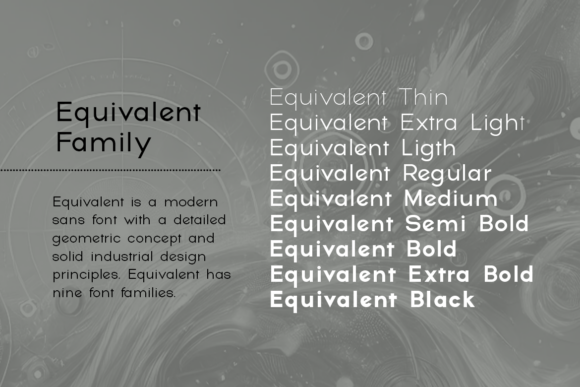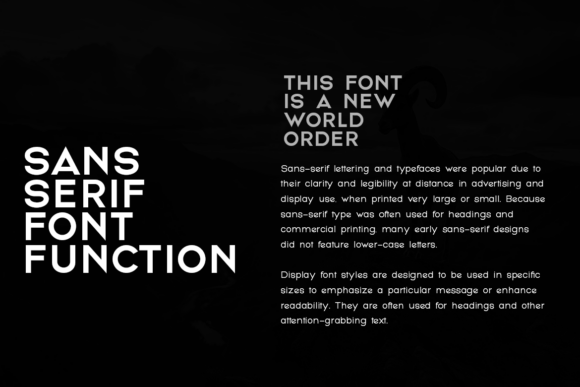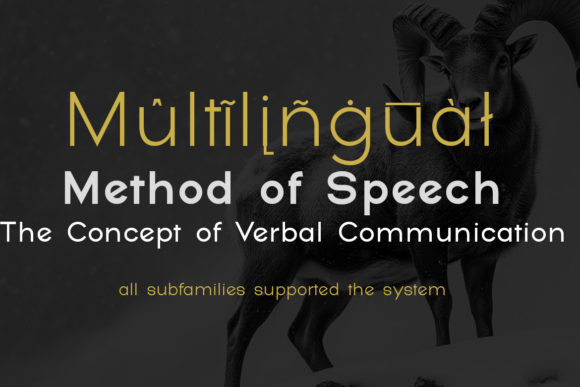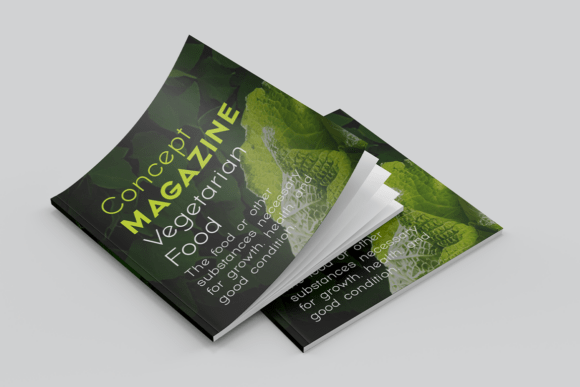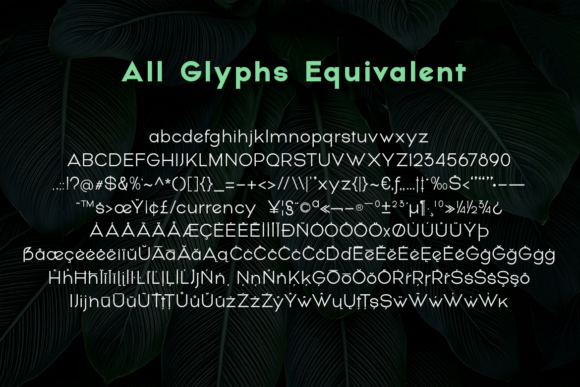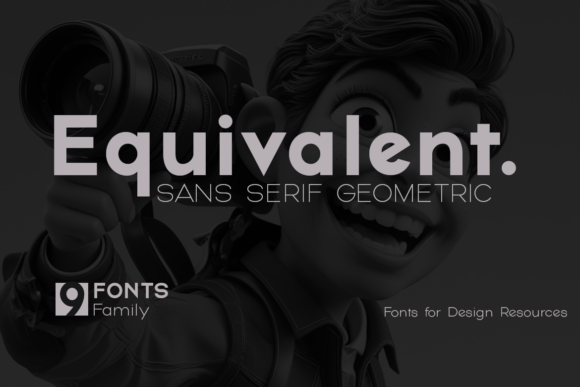
Introducing Equivalent Font: A Modern Sans Serif Marvel
In the realm of typography, a well-crafted font can elevate a design from ordinary to extraordinary. For designers and crafters seeking a modern sans serif font that embodies both style and functionality, look no further than Equivalent Font. This geometric marvel, rooted in solid industrial design principles, is poised to revolutionize your creative projects.
The Equivalent Font Family: A Spectrum of Versatility
Equivalent Font boasts an impressive nine font families, offering a range of choices to suit any design requirement. This extensive collection ensures that you can adapt your typography to fit various contexts, from digital interfaces to print materials, without compromising on aesthetics or readability. Whether you’re working on a sleek corporate brand identity or a vibrant advertising campaign, Equivalent Font provides the versatility you need.
Understanding the Concept: Geometric and Industrial Roots
At its core, Equivalent Font is built on a detailed geometric concept. This approach ensures that each character is meticulously designed with precision and balance, reflecting a harmonious blend of curves and lines. The industrial design principles that underpin Equivalent Font contribute to its modern appeal, making it an excellent choice for projects that demand a contemporary edge.
The Power of Sans Serif: Clarity and Legibility
Sans serif typefaces, like Equivalent Font, have long been favored for their clarity and legibility, particularly in advertising and display use. This is because their clean lines and straightforward appearance make them highly readable, even at a distance or when printed in various sizes. Whether you’re designing a billboard, a website header, or a business card, Equivalent Font ensures that your message is conveyed with utmost clarity.
Exploring the 9 Weights of Equivalent Font
One of the standout features of Equivalent Font is its comprehensive range of weights. Available in nine straight weights, this font family allows designers to experiment with different tones and emphasis within their work. From the light, airy feel of the lighter weights to the bold, assertive presence of the heavier weights, Equivalent Font offers the flexibility to tailor your typography to the nuances of your message.
Applications for Designers and Crafters
Equivalent Font’s versatility makes it an invaluable asset for a wide range of applications. Designers can leverage its geometric sophistication and industrial edge to create:
- Branding and Logos: Establish a strong, modern identity for your brand with a font that communicates professionalism and innovation.
- Advertising and Marketing Materials: Capture attention and convey your message with clarity, using a font that stands out in any medium.
- Digital Interfaces: Enhance user experience with a clean, readable font that performs well across various devices and screen sizes.
- Print Materials: From brochures and posters to business cards and packaging, Equivalent Font brings a touch of modernity and elegance to any printed piece.
Equivalent Font represents a significant addition to the world of typography, offering designers and crafters a powerful tool to elevate their creative projects. With its geometric concept, industrial design principles, and extensive range of weights, this modern sans serif font is poised to become a go-to choice for those seeking both style and functionality. Explore the possibilities of Equivalent Font today and discover how it can transform your designs.